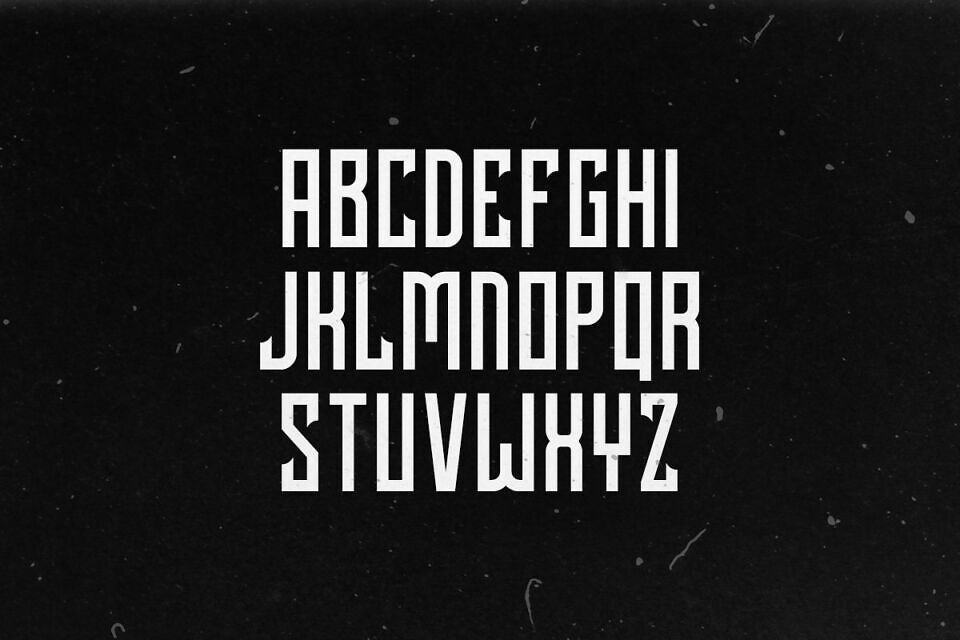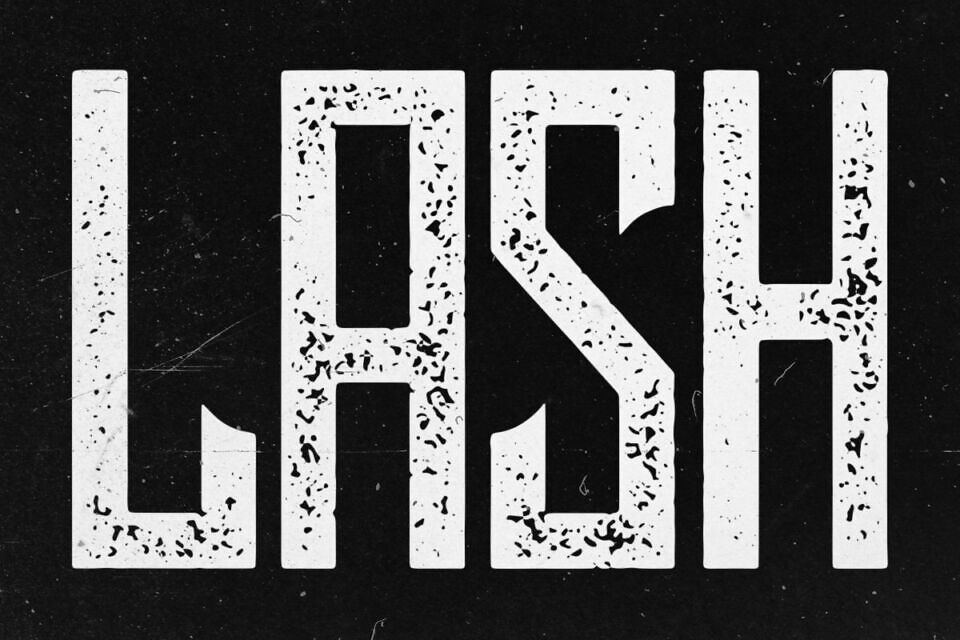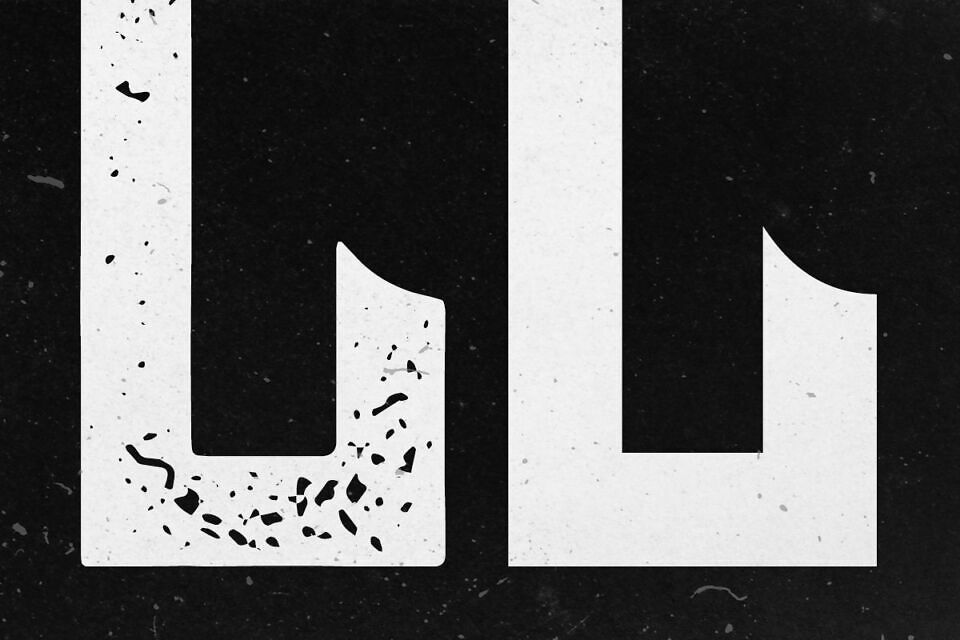
Lash is a tall and sharp typeface. It comes in regular and rough styles.
Meticulously crafted with an original hand-drawn design, it exudes an old-school charm that is ideal for designs requiring a classic touch. It includes uppercase multilingual letters, numbers and punctuation.